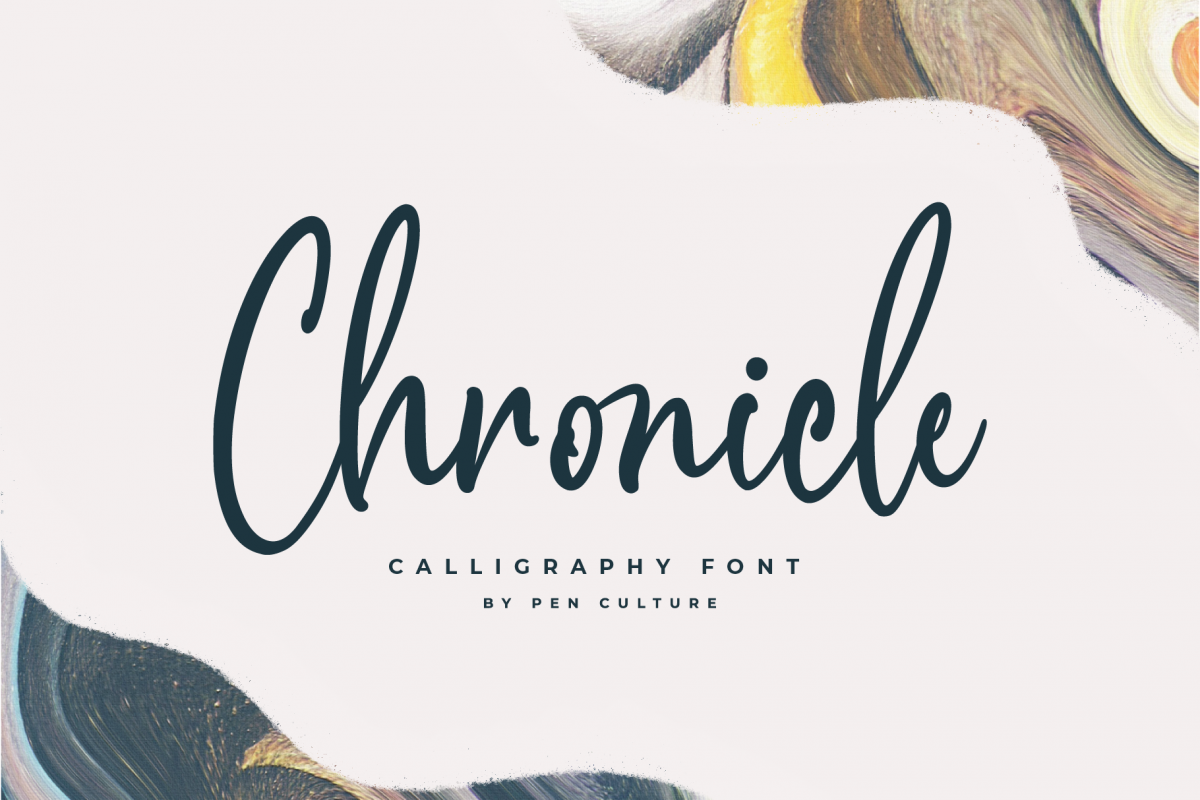
Chronicle Calligraphy Font
Chronicle
Introducing Chronicle Calligraphy Font. This font is modern calligraphy that perfect for any purpose.
• Uppercase and Lowercase Letter
• Number and Punctuation
• Beautiful Ligature
• Stylistic Alternate
• Multilingual Accent : ÀÁÂÃÄÅÆÇÈÉÊËÌÍÎÏÐÑÒÓÔÕÖØÙÚÛÜÝßàáâãäåæçèéêëìíîïðñòóôõöøùúûüýÿ